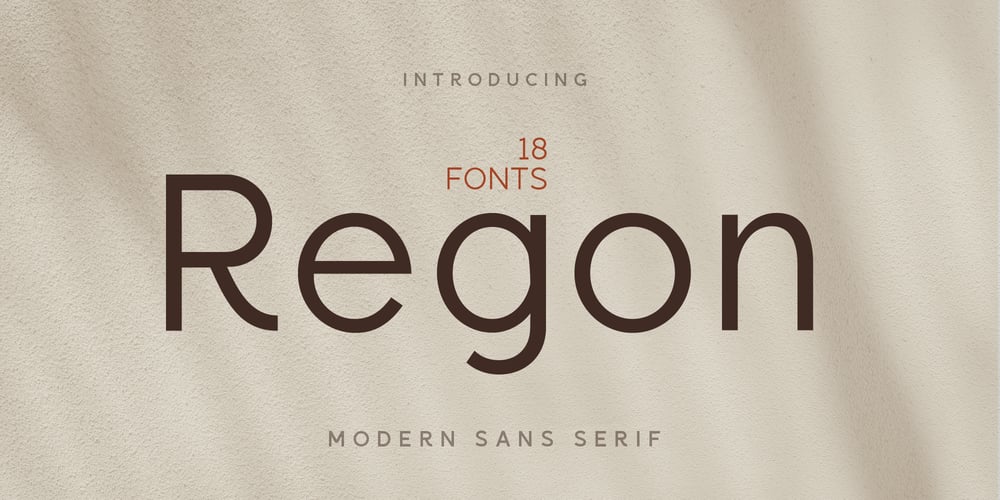
Regon Font Family was designed by Fiki Ahmadi and published by Dicubit. Regon contains 18 styles and family package options. Regon is a modern sans serif typeface/font family (18 fonts) designed with carefully handcrafted. This perfectly made to be applied in logo or branding, stationery, books, packaging, fashion, magazines, t-shirt, novels, labels and many advertising purposes. Styles: Thin, Extra Light, Light, Regular, Medium, Semi Bold, Bold, Extra Bold, Black (All with Italic).Features: Uppercase, Lowercase, Number, Punctuation, Symbol, Multilingual. All the pictures used in the preview are not included. They are intended only for illustration purpose.